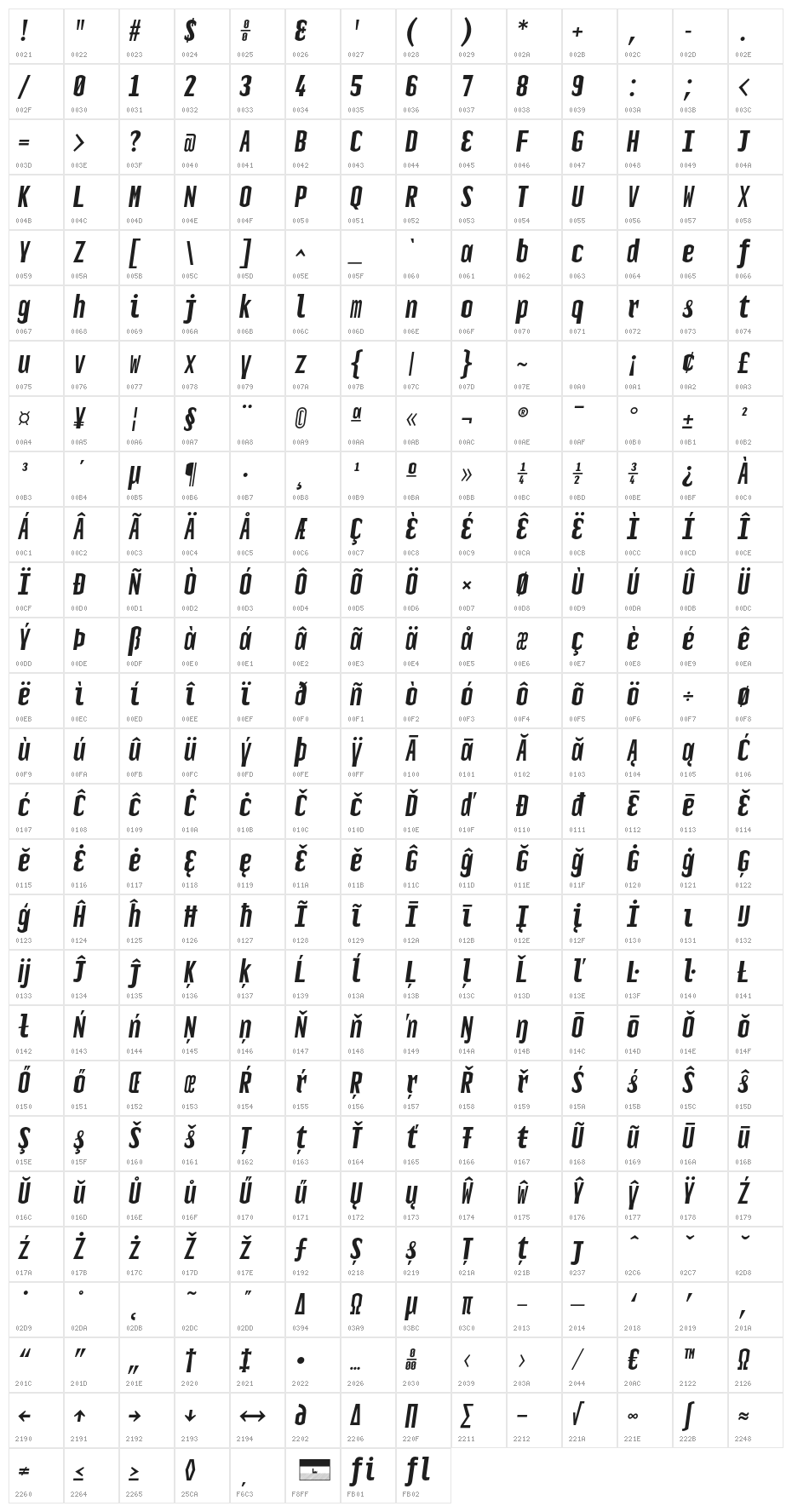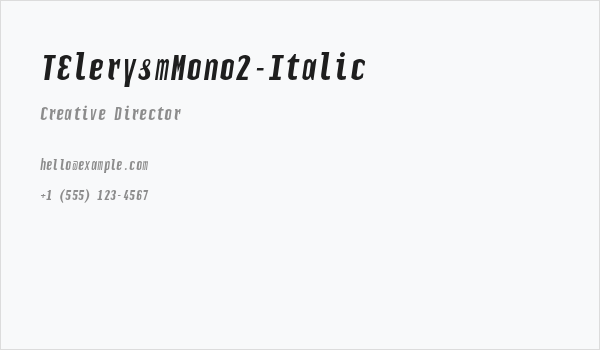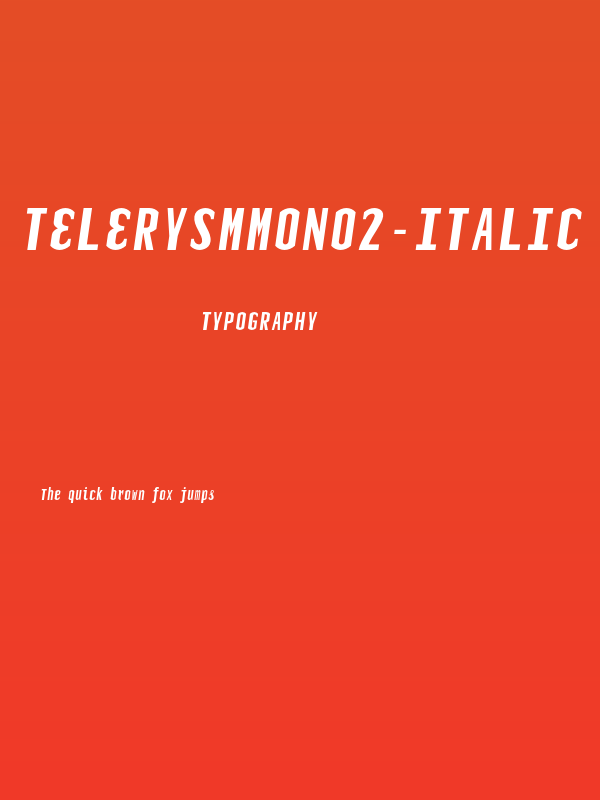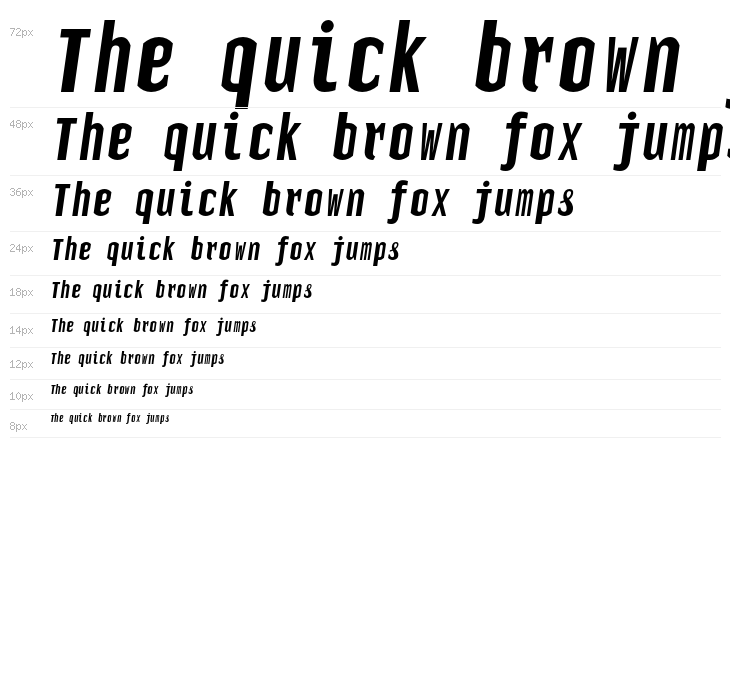
TElerysmMono2-Italic Font
TElerysmMono2-Italic Description
This font features a modern, italicized style with a distinct slant, giving it a dynamic and energetic appearance. The characters are monospaced, ensuring uniformity in width, which is ideal for coding and tabular data. The uppercase letters are bold and assertive, while the lowercase letters maintain a consistent flow with slightly rounded edges. Numbers and special characters are clear and easily distinguishable, making them suitable for technical documents. The overall design is sleek and contemporary, with medium contrast in stroke thickness, providing a balanced visual appeal.
| Use Case | Coding, Technical documents, Digital interfaces |
| Proposed Projects | Ideal for coding, technical documents, modern branding, and digital interfaces. |